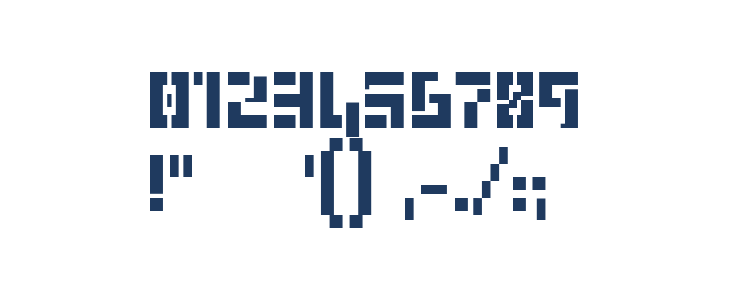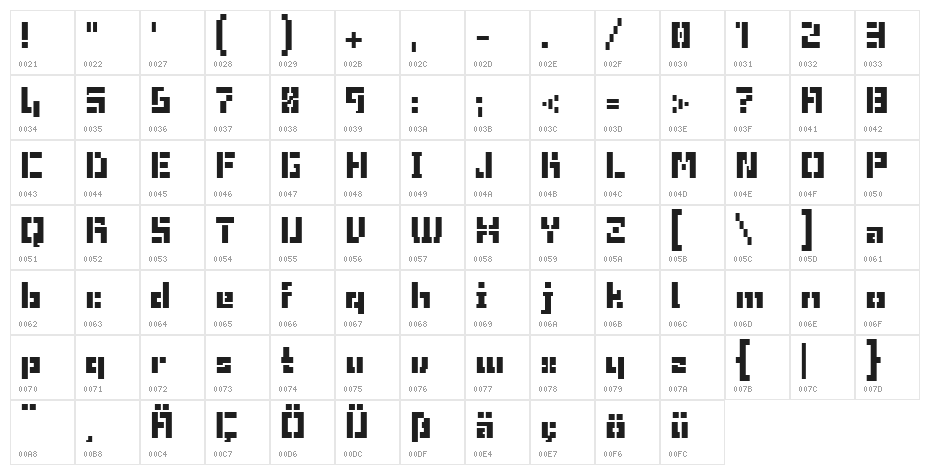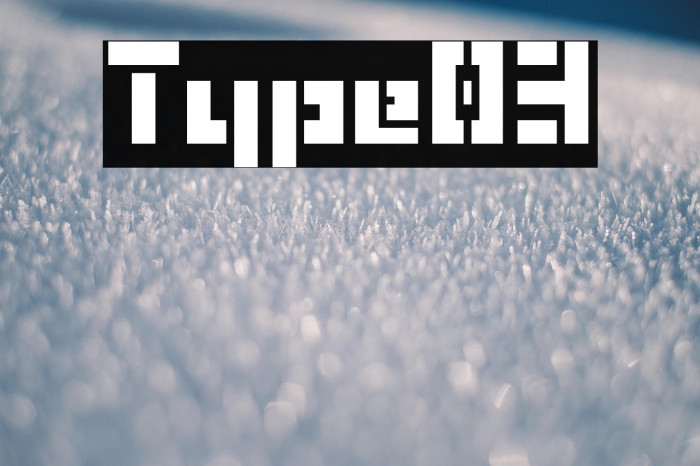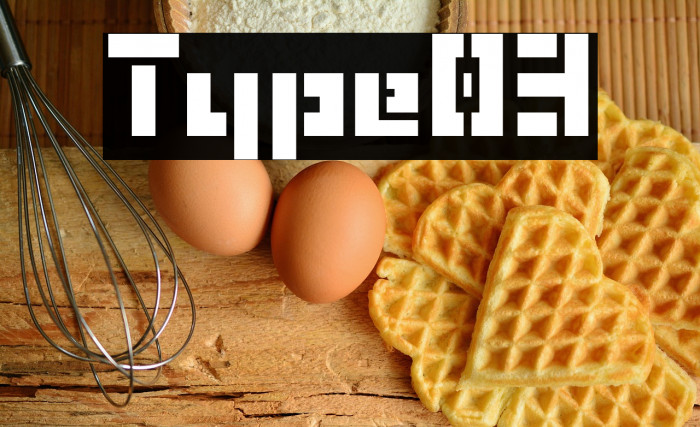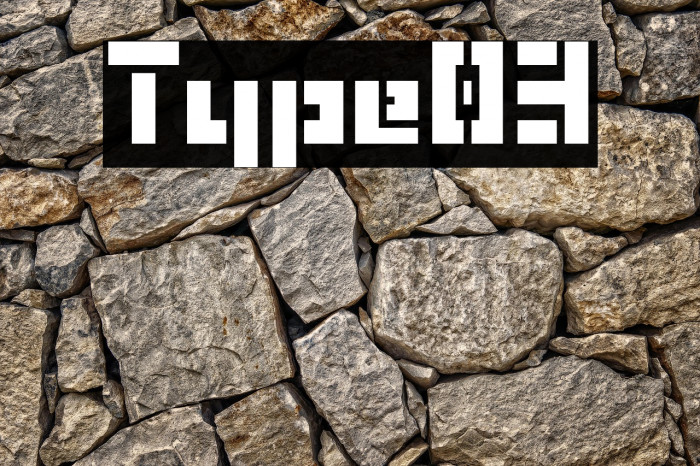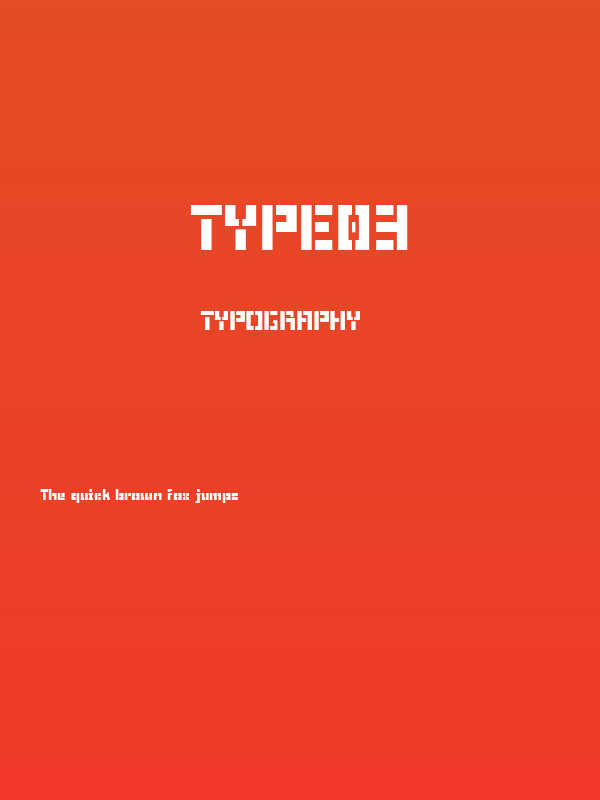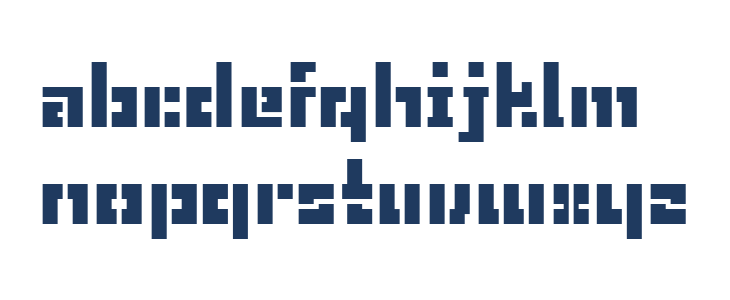
Type03 Font
This font features a bold, geometric design with a distinctly digital and pixelated aesthetic. The characters are constructed with sharp, angular edges and consistent block-like shapes, giving it a modern and tech-inspired look. The uppercase and lowercase letters maintain a uniform height, contributing to a monospaced appearance. The numbers and special characters follow the same blocky style, ensuring visual consistency across all elements. This font's unique structure makes it stand out, ideal for projects that require a futuristic or retro digital feel.
| Use Case | Headlines, Logos, Digital displays |
| Proposed Projects | Ideal for video game design, tech branding, digital art projects, and retro-themed posters. |